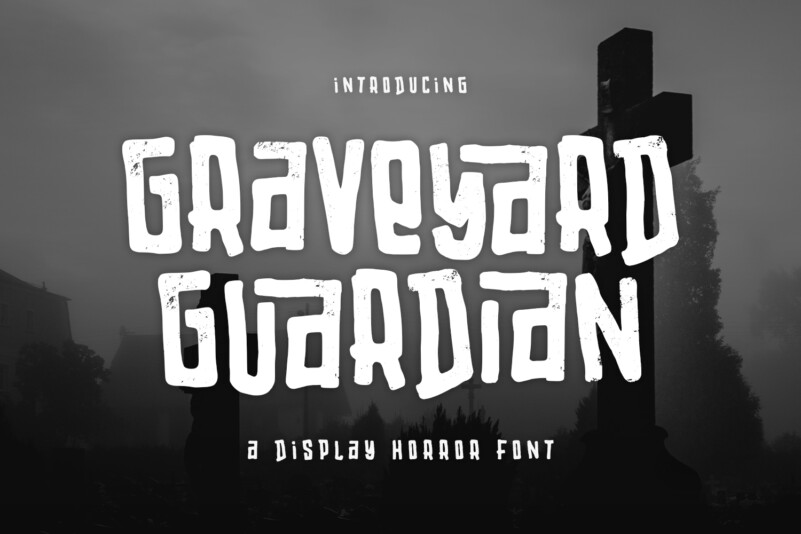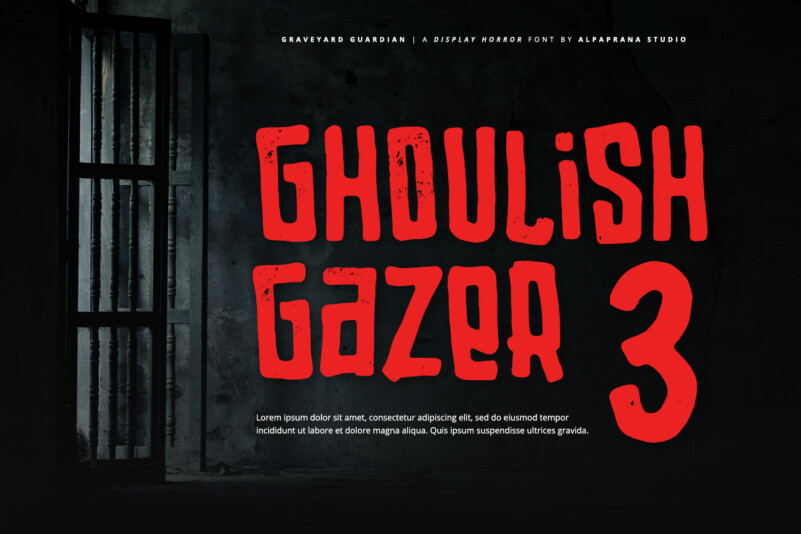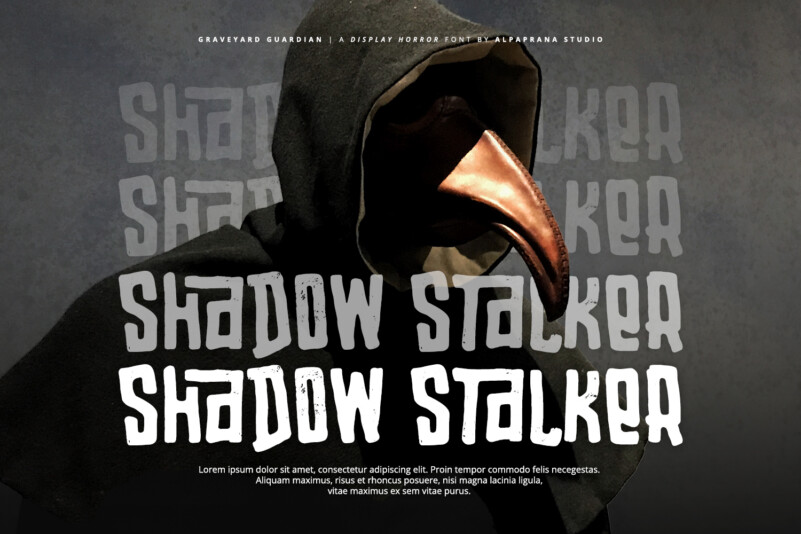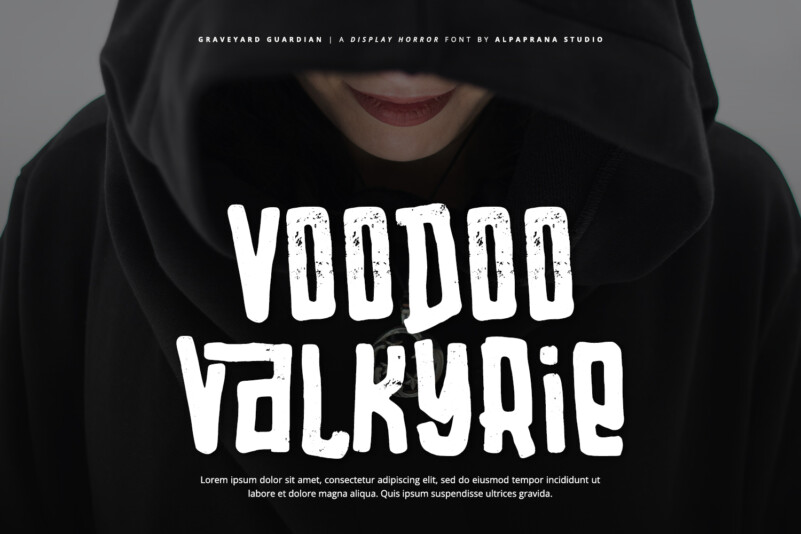
Graveyard Guardian Font is a display horror font with cute and modern feels. It will be perfectly used for Branding, Logo Design, Lettering, Logotype, Clothing, Poster, magazine, packaging, posters, shopping bags, t-shirts, book covers, photography, special events and other design project.